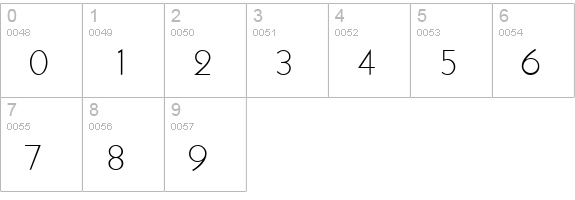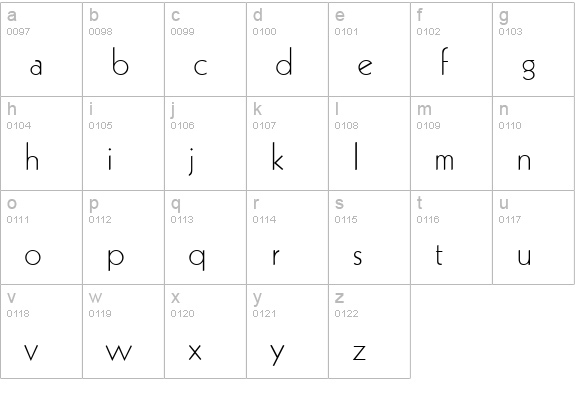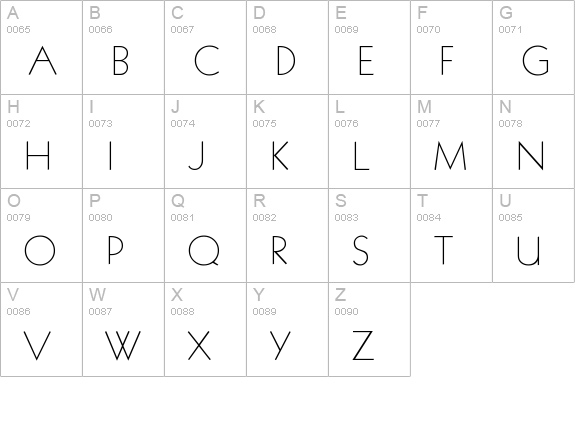
K791-Geometrical-Light-Regular Font Details
K791-Geometrical-Light-Regular is a refined, elegant variant in the K791 typeface family \xE2\x80\x94 well suited to elegant body text, refined sub-headings, and luxury branding.
K791-Geometrical-Light-Regular is a modern and sleek geometric sans-serif font that exudes elegance and sophistication. With its clean lines and balanced proportions, this typeface is perfect for a wide range of design projects, from branding to editorial design. The sharp angles and precise geometry of K791-Geometrical-Light-Regular give it a futuristic and cutting-edge look, making it ideal for conveying a sense of innovation and creativity. What makes K791-Geometrical-Light-Regular even more appealing is that it is available for free download at FontsMarket.com. This means that you can easily access this high-quality font and use it in your projects without any cost. Whether you are a professional designer or just starting out, K791-Geometrical-Light-Regular is a versatile and stylish font that will elevate your work to the next level.